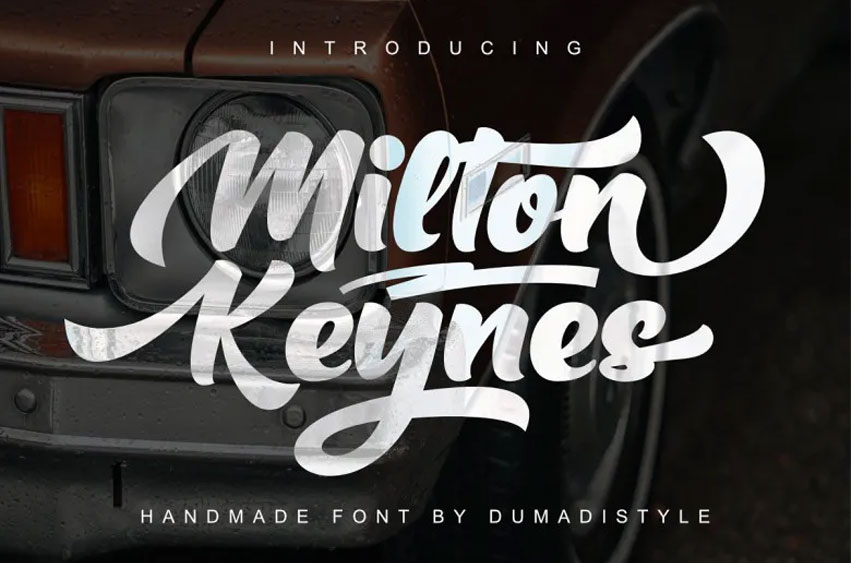
Milton Keynes Font is a bold script typeface that gives a feeling of a thick and coarse text! These fonts are suitable for people who want typeface for headlines, logos, sportswear, invitations, packaging, adverting and other uses.
This typeface comes with the lower-case and upper-case characters, numerals, punctuations, stylistic set alternatives, ligatures and more are also provided in multiple languages.